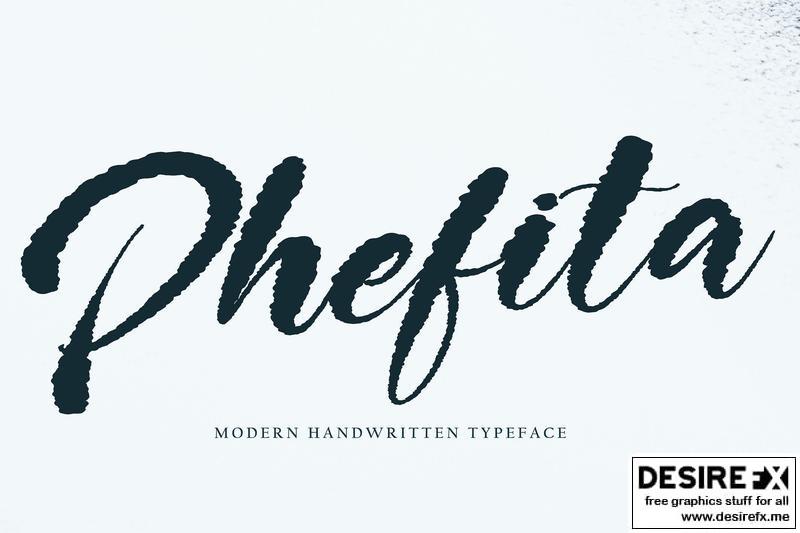
Phefita JCM85R8
Phefita with new style, this font will perfect for many different project ex: quotes, logo, blog header, poster, banding, letter, invitation, stationery, etc…